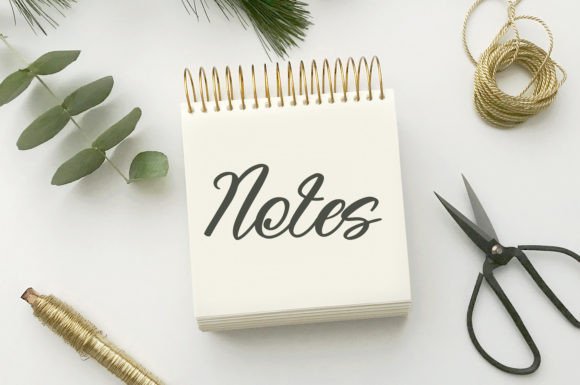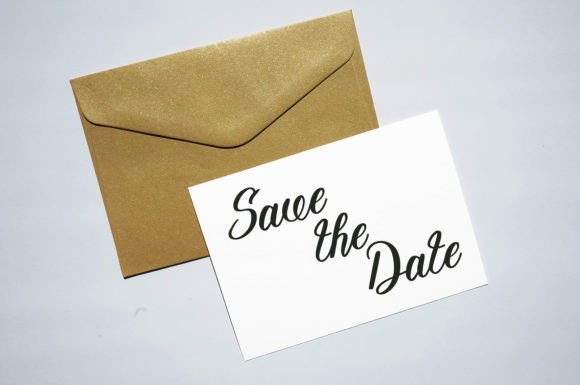
The Perfect Script Font: Unleashing the Beauty of Drip Font
Do you remember the moment when you stumbled upon the perfect font for your project? Maybe it was a birthday invitation, a wedding program, or even a simple logo for your startup. For designers, finding the right font can be a game-changer, elevating the entire design from ordinary to extraordinary. This is exactly what happens when you come across the lovely Drip Font, a script-type font that exudes elegance and sophistication.
Drip Font is a carefully crafted font that pays attention to every curve and distance between letters. Its beauty lies in its simplicity, making it perfect for a wide range of applications, from wedding invitations to t-shirt printing. Whether you’re a seasoned designer or a creative enthusiast, Drip Font is a valuable addition to your font library. With its versatility and timeless appeal, it’s no wonder that Drip Font has become a favorite among designers looking to add a touch of class to their projects.
Drip Font Key Features
- Font Family: Drip Font is a unique, hand-drawn font family with multiple styles, including Regular, Bold, Italic, and Bold Italic.
- Size: The font family includes a wide range of characters, including uppercase and lowercase letters, numbers, and punctuation, making it suitable for various design applications.
- Resolution: Optimized for high-resolution displays, ensuring crisp and clear text rendering at various sizes and resolutions.
- Unique Characteristics: Drip Font features a distinctive, hand-drawn style with subtle imperfections, giving it a unique and artistic touch.
- Font Size Range: Suitable for body text, headings, and titles, with a recommended font size range of 12-72 points.
Drip Font Review
I recently had the chance to work with Drip Font and I must say, it’s a unique and eye-catching font. Here are some of its strengths and weaknesses.
- Drip Font is perfect for adding a touch of elegance and sophistication to your designs.
- The font is highly customizable, allowing you to adjust its size, color, and spacing to fit your design needs.
- It’s a great choice for creating attention-grabbing headlines and titles.
- The font may be too ornate for some designs, which can make it difficult to read in certain contexts.
- It may not be the best choice for body text, as it can be overwhelming to read large blocks of text in this font.
- The font’s complexity can make it challenging to pair with other fonts, which may limit its versatility.
Overall, I think Drip Font is a great choice for designers who want to add a touch of luxury and sophistication to their designs. While it may have some limitations, its unique style and high customizability make it a valuable addition to any design toolbox.
For best results, use Drip Font in conjunction with bold or italic text to create a striking visual effect.
Use Drip Font to add a unique touch to your graphics and designs.
Use Drip Font to add a touch of elegance to your presentations and documents.
Drip Font is ideal for:
- Water-inspired designs
- Health and wellness graphics
Remember to experiment with different font combinations and styles to achieve the best results.